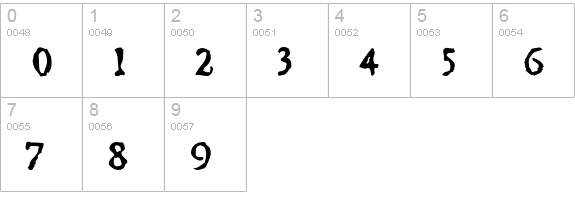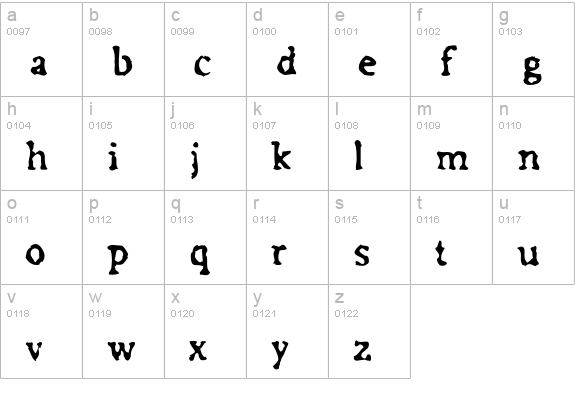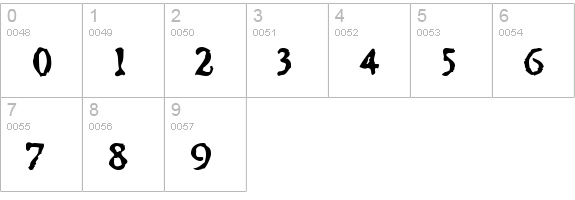
Irregular-Bold Font Details
Irregular-Bold is a strong, high-contrast variant in the Irregular typeface family \xE2\x80\x94 well suited to headlines, attention-grabbing titles, and strong calls-to-action.
Introducing Irregular-Bold, a stunning and captivating font that effortlessly adds a touch of uniqueness to any design project. This font is the epitome of boldness and irregularity, making it an excellent choice for those who want to make a statement and break away from the norm. With its distinct and eye-catching letterforms, Irregular-Bold is bound to grab attention and leave a lasting impression. Whether you're creating a logo, designing a poster, or crafting a headline, this font will elevate your work to new heights. What makes Irregular-Bold even more exciting is that it is available to download for free at FontsMarket.com. Yes, you read that right – this extraordinary font can be yours without spending a dime. FontsMarket.com offers a wide range of high-quality fonts, and Irregular-Bold is just one of the many gems waiting to be discovered. Not only does Irregular-Bold boast an impressive aesthetic, but it also embodies versatility. It effortlessly adapts to various design styles, allowing you to explore endless creative possibilities. From modern and edgy to retro and nostalgic, this font can seamlessly blend into any theme or concept. The attention to detail in Irregular-Bold is commendable, with each character meticulously crafted to ensure a balanced and harmonious overall appearance. The irregular strokes and bold weight give this font a unique personality that demands attention and leaves a lasting impact. So, if you're ready to add a touch of boldness and irregularity to your designs, look no further than Irregular-Bold. Download it for free at FontsMarket.com and unlock a world of creative possibilities. Let your imagination run wild and watch as your designs come to life with this exceptional font.